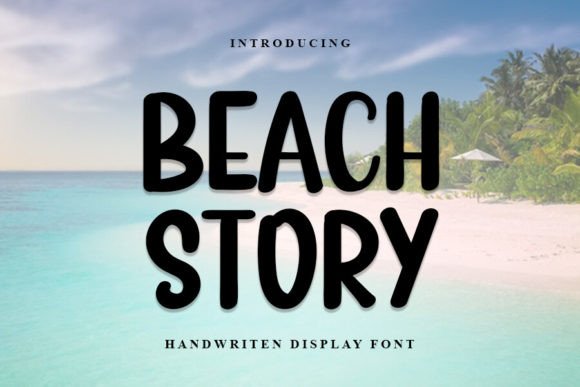
Beach Story Font: A Festive and Happy Typeface for Holiday Designs
The holiday season is upon us, and with it comes the need for festive and fun designs that capture the spirit of the season. If you’re looking for a typeface that embodies the cheer and nostalgia of the holidays, look no further than the Beach Story font. This decorative font is perfect for adding a touch of charm to your designs, whether you’re creating greeting cards, gift labels, or holiday-themed projects.
What is Beach Story Font?
Beach Story font is a unique and festive typeface that is designed to capture the spirit of the holiday season. With its decorative elements and unique flair, this font adds a touch of charm to any design. The font is perfect for creating holiday-themed projects, such as greeting cards, gift labels, and festive posters.
Key Features of Beach Story Font
So, what makes Beach Story font so special? Here are just a few of its key features:
- Festive and Happy: Beach Story font is designed to be festive and happy, making it perfect for holiday designs.
- Decorative Elements: The font features decorative elements that add a touch of charm to your designs.
- Unique Flair: Beach Story font has a unique flair that sets it apart from other typefaces.
Uses for Beach Story Font
Beach Story font is perfect for a variety of holiday designs, including:
- Greeting Cards: Add a touch of festive cheer to your holiday greeting cards with Beach Story font.
- Gift Labels: Create custom gift labels with Beach Story font for a personal touch.
- Holiday-Themed Projects: Use Beach Story font to add a festive touch to your holiday-themed projects, such as posters, flyers, and brochures.
Benefits of Using Beach Story Font
So, why should you choose Beach Story font for your holiday designs? Here are just a few benefits:
- High-Quality Design: The font is designed to high-quality standards, ensuring that your designs look professional and polished.
- Unique and Festive: Beach Story font is a unique and festive typeface that will add a touch of charm to your designs.
Tips and Tricks for Using Beach Story Font
Here are a few tips and tricks for using Beach Story font:
- Use a Festive Color Scheme: Use a festive color scheme to match the holiday season.
- Experiment with Different Sizes: Experiment with different font sizes to create visual interest.
- Combine with Other Fonts: Combine Beach Story font with other fonts to create a unique look.